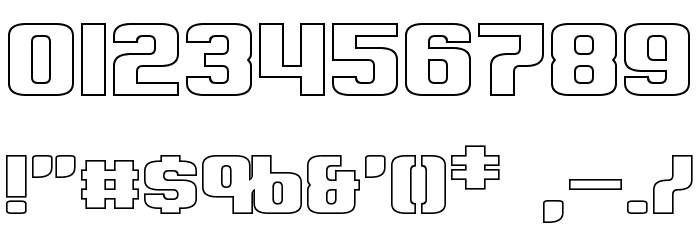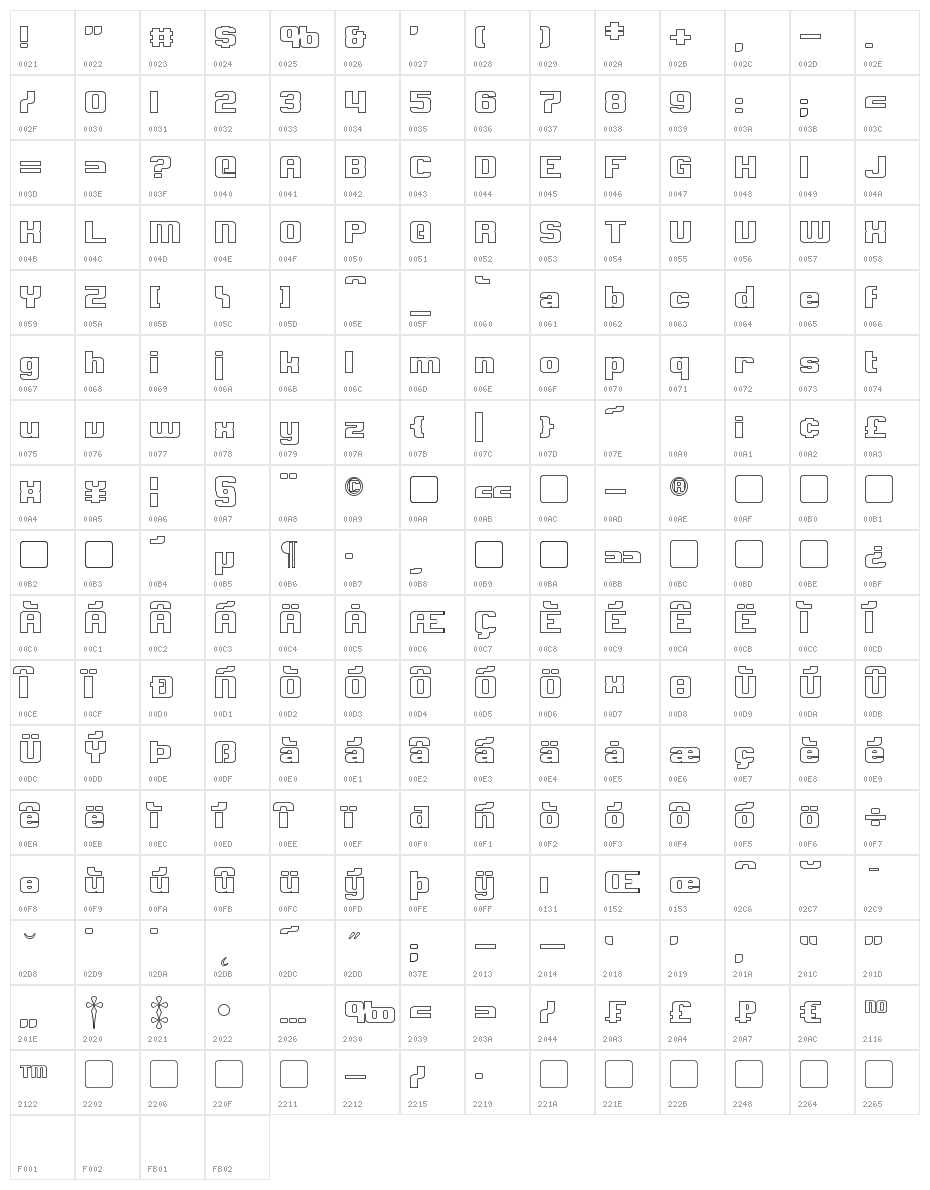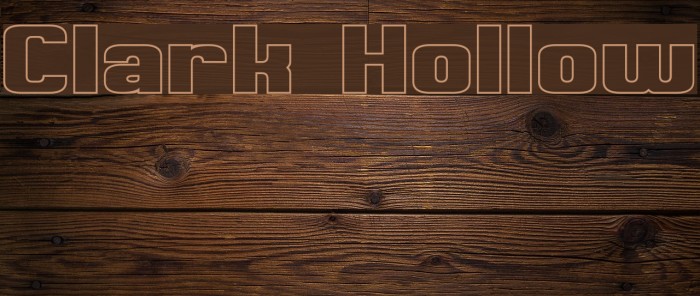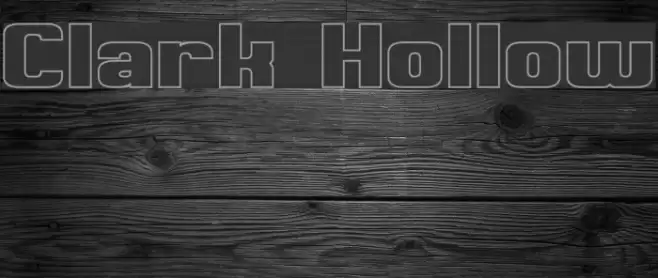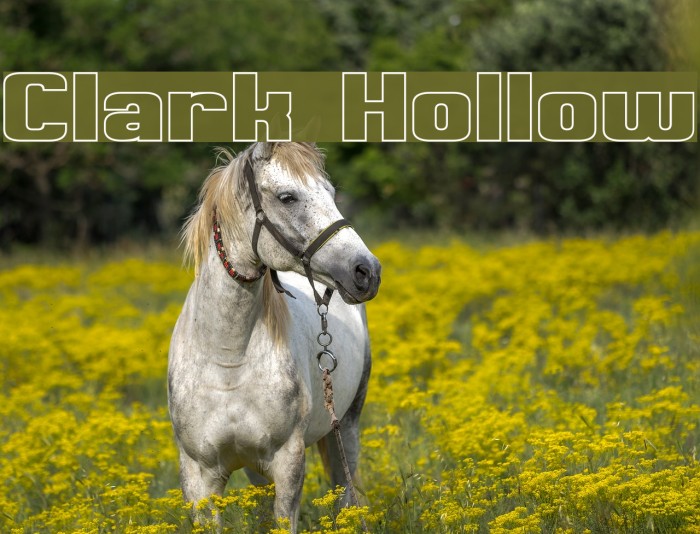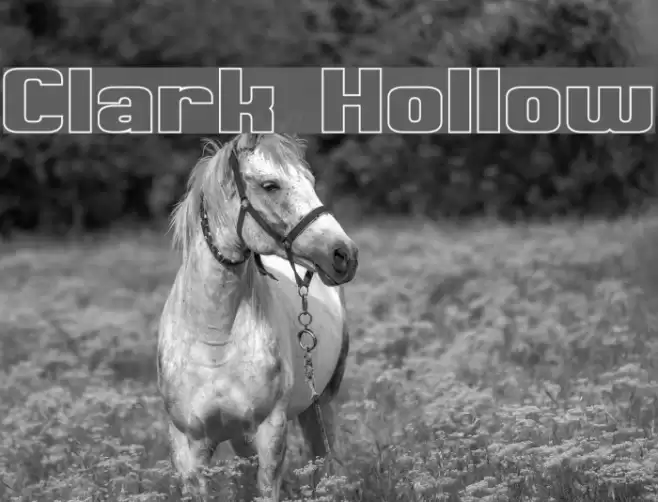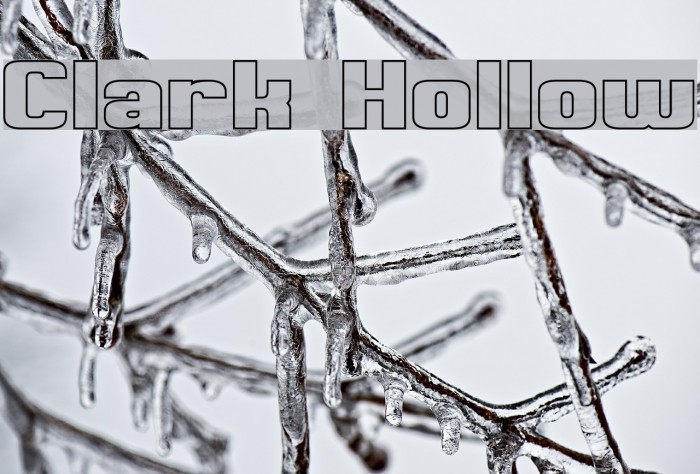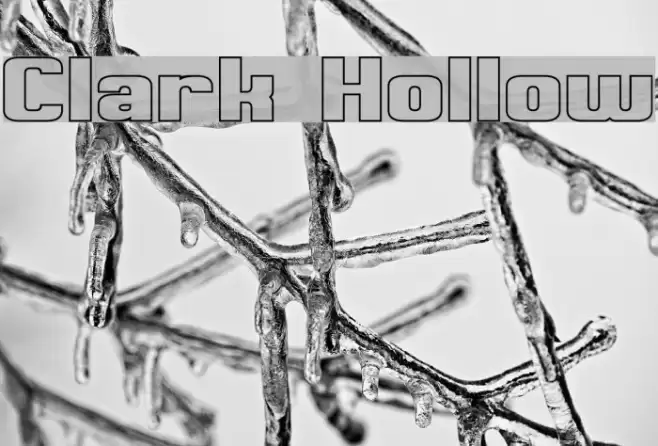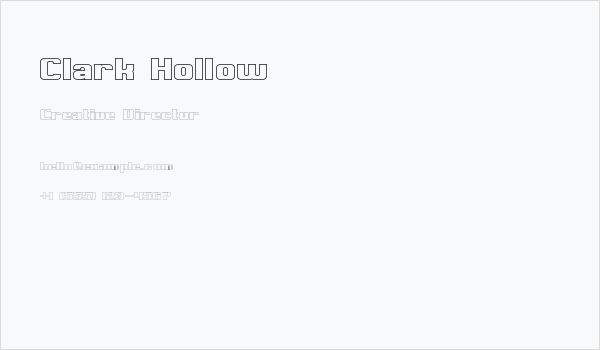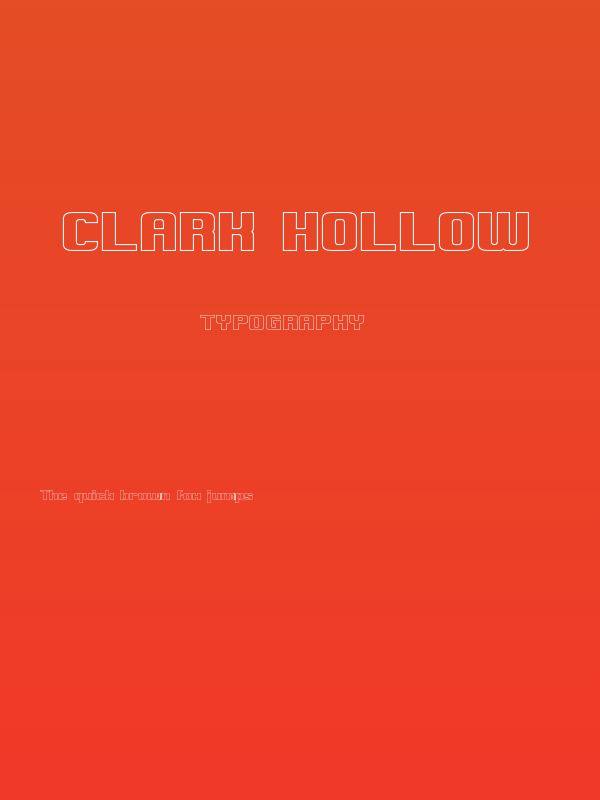
Clark Hollow Font
Clark Hollow Description
This font features a distinct hollow design, characterized by its bold, geometric shapes and clean lines. The uppercase and lowercase letters maintain a consistent width, creating a uniform appearance. The numerals and special characters follow the same hollow style, enhancing the cohesive look of the typeface. Its modern and futuristic aesthetic makes it suitable for projects that require a strong visual impact. The font's structure is both eye-catching and legible, making it versatile for various design applications.
| Proposed Projects | Ideal for branding, posters, headlines, and digital media where a strong visual presence is needed. |